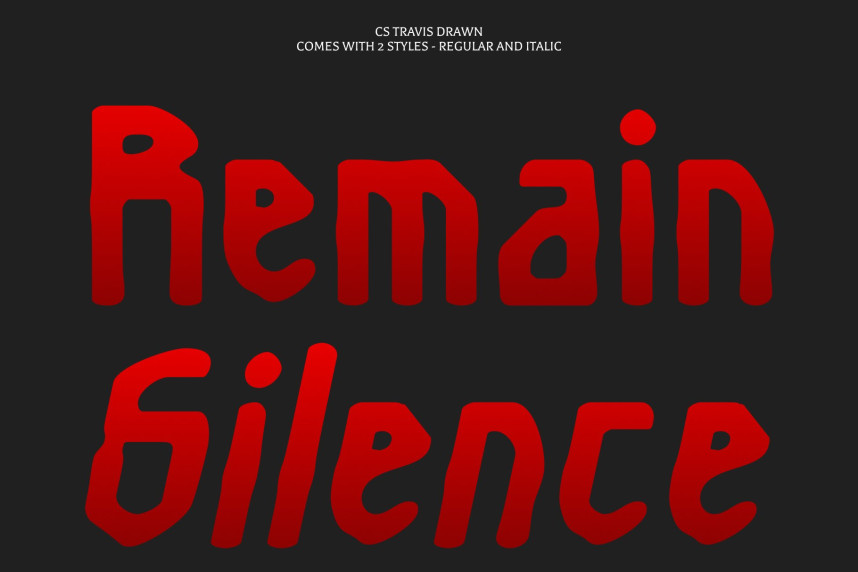
CS Travis Drawn Font
CS Travis Drawn Font – Decorative Gothic Display Font with Expressive Character Eye-Catching Gothic-Inspired Letterforms. This is a decorative display font that blends gothic-like elements with bold, playful shapes to create a funky and highly characterful appearance. Its dramatic forms and ornamental details instantly draw attention, making every word feel expressive and full of attitude. The gothic influence adds depth and edge, while the decorative styling keeps the font visually exciting and unconventional.